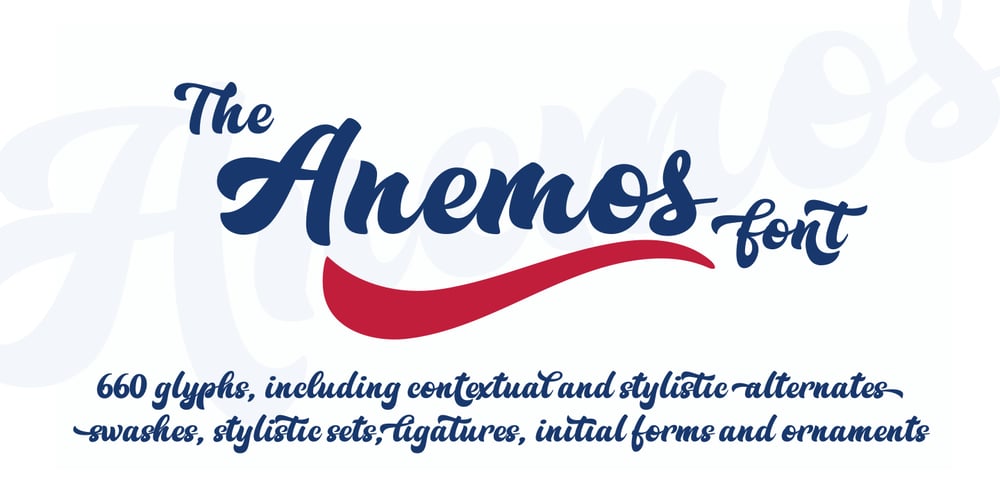
Anemos Font Family was designed by Carine de Wandeleer and published by Eurotypo. Anemos contains 1 styles and family package options. With 662 glyphs, Anemos font is the perfect mix of elegant and casual. The Open Type features include a full international character compliment, standard and contextual alternates, swatches, stylistic sets, initial forms, standard and discretionary ligatures (capital letters have at least six different forms and the lower case letters ten). All this makes the text lively and bouncy, without the monotony of obviously repeated letterforms. In addition, we have included some ornaments designed to support the font, some were specially designed to be combined with the letters for a “more calligraphic” effect (access to them through the glyphs palette). Anemos can be the option used to create titles, logos and posters for brand and packaging purposes, invitations, greeting cards, magazines and book covers, children’s material, fashion, and where you want it.